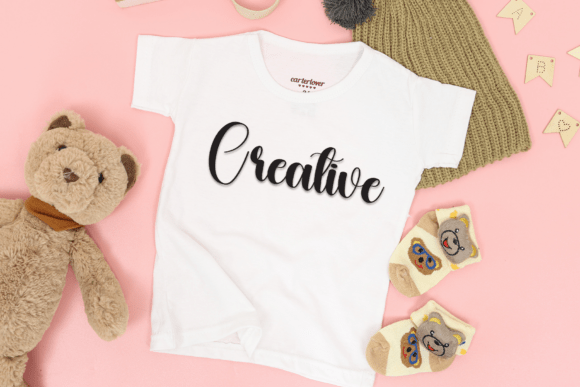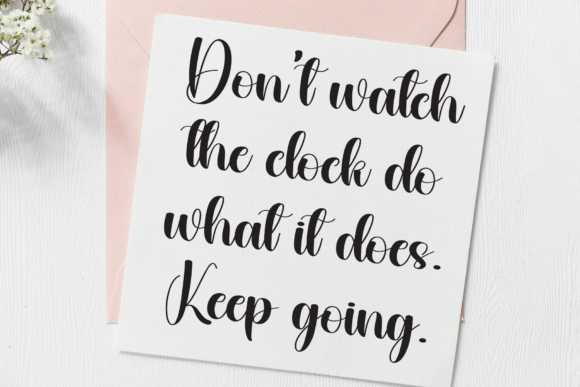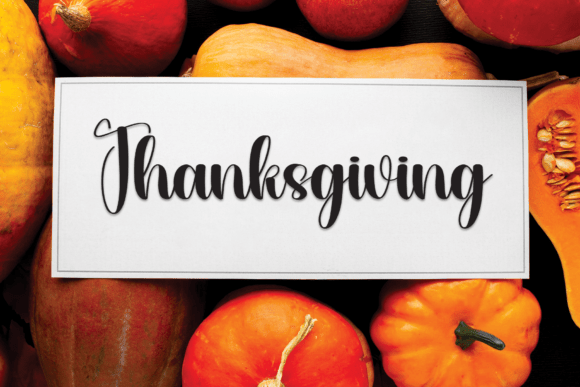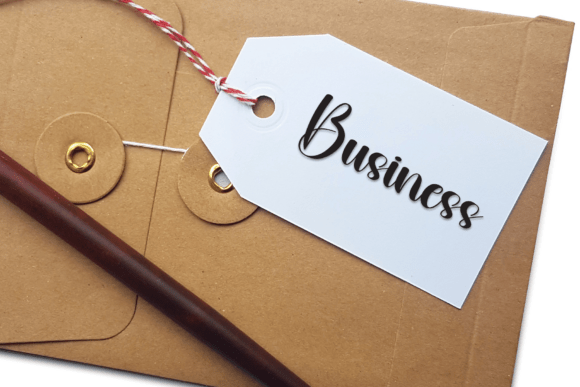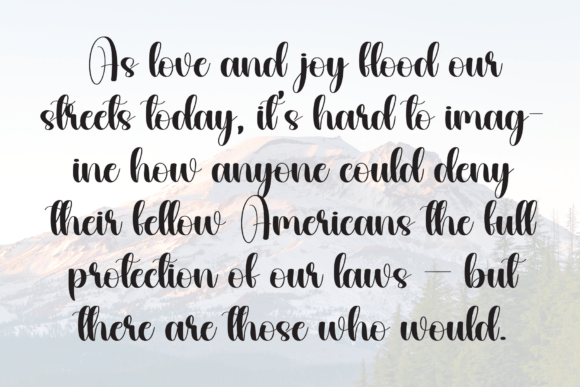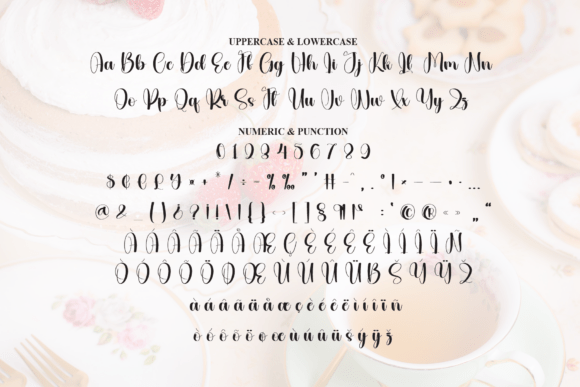
The Caketea Font: Elevate Your Designs with Artistic Flair
I’ll never forget the time I was working on a branding project for a trendy bakery, and I just couldn’t find the right font to capture their playful yet sophisticated vibe. That’s when I stumbled upon the Caketea font, and it was love at first sight! ✨ With its fluid brush strokes, dynamic curves, and expressive letterforms, it’s like a breath of fresh air for any design.
As a designer, I’m always on the lookout for fonts that can elevate my work and make it stand out. Here’s what I love about Caketea:
- ✅ Its unique blend of hand-painted calligraphy and modern elegance
- ✅ The natural flow and rhythm of the font, which makes it perfect for creative projects
- ✅ The versatility of Caketea – it works beautifully for logos, invitations, packaging, and social media graphics
- ✅ The font’s ability to add a touch of sophistication and whimsy to any design
Of course, no font is perfect, and Caketea has a few minor quirks:
- ⚠️ Some of the letterforms can be a bit tricky to read at smaller sizes, so it’s best to use it for headlines or titles
- 🤔 The font’s stylistic alternates and glyphs can take some getting used to, but trust me, it’s worth the extra effort
The Story Behind Caketea
Caketea was designed by a talented typographer who’s passionate about creating fonts that inspire creativity. The story goes that the designer was sipping on a cup of tea and brainstorming ideas for a new font when the concept of Caketea was born. And the rest, as they say, is history! 🍵
- Q: Is Caketea suitable for body text?
- A: While Caketea is a beautiful font, it’s best suited for headlines, titles, and short paragraphs. For body text, you may want to choose a more traditional font.